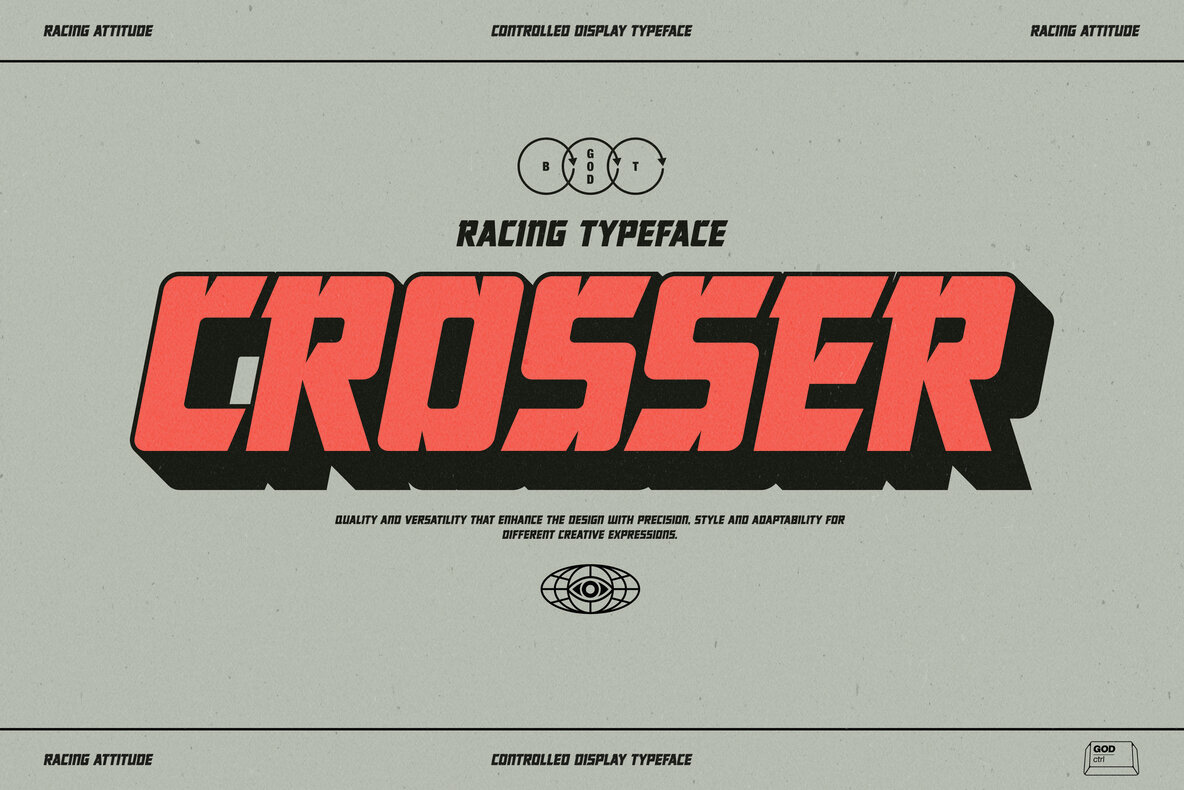
For the young and energetic graphic designers who are always on the lookout for edgy and striking fonts, get ready to revamp your projects with a font that breathes life into your designs. Introducing Crosser, a dynamic and bold display typeface that doesn’t shy away from making a statement. Crafted with precision and passion by Aluyeah Studio, Crosser is a race-inspired font that exudes motion, attitude, and a dash of nostalgia.
Whether you’re working on a contemporary brand identity or creating a fiercely expressive sports graphic, Crosser is your go-to font. Its unique blend of geometric forms and racing grit gives it a versatile edge, making it perfectly suited for a wide range of design purposes. It stands out, it speaks volumes, and it’s poised to take your designs to pole position.
Command Attention with Crosser: a Typeface for the Fast Lane
The power of Crosser lies in its distinct characteristic of imitating speed and motion, making it perfect for projects requiring a sense of dynamism. Its geometric patterns are combined with the edginess of racing motifs, creating a typeface that not only communicates speed, but also control and clarity. With its bold lines and sharp corners, Crosser is here to infuse your designs with an adrenaline rush.
Furthermore, Crosser is user-friendly, boasting 215 total characters, including special characters and punctuation. Engineered for maximum usability and efficiency, this dynamic typeface is easy to work with, allowing you to focus more on your creativity and spend less time on the tedious technical details.
By incorporating Crosser into your toolbox, you’ll be adding a typeface that embodies motion, boldness, and character. Its unique blend of geometric shapes and race-inspired aesthetics ensures that your designs will always carry a vibrant spark of energy and a striking visual appeal. So, fasten your seatbelt and get ready to steer your projects into the fast lane with Crosser!